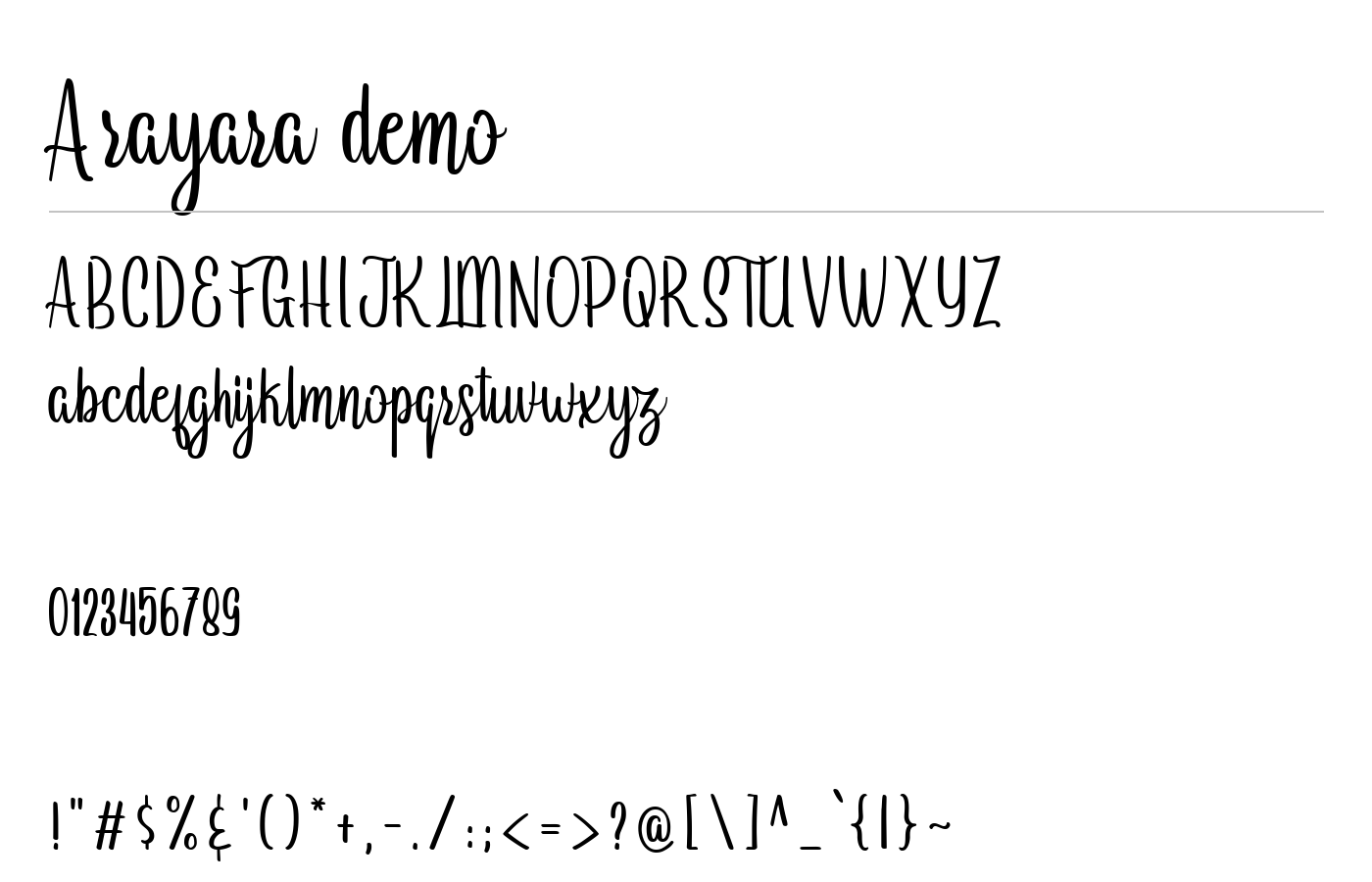
Arayara demo is a playful, narrow script font with a casual handwritten feel, characterized by its tall, slender letterforms and smooth, flowing strokes. Its elegant yet informal style makes it perfect for creative branding, invitations, and headlines that seek a personal, approachable touch. This font works well where a unique, friendly appearance is desired without sacrificing readability.
Arayara demo Font
About Arayara demo Font